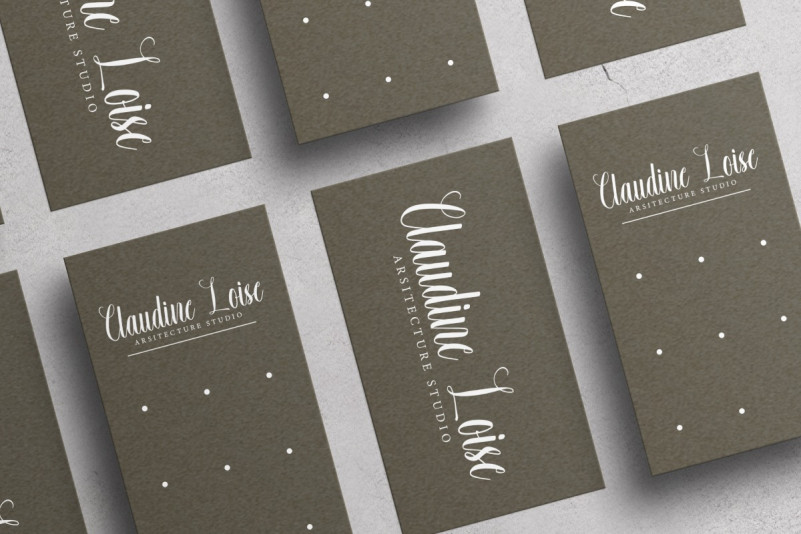
Baby Creamy Calligraphy Font is an alluring soft script font created by EdricStudio. This font has a neat and classy impression and easy to read making it suitable for any industry, such as accessories, architect, clothing brand, cosmetic, event organizer, flower shop, photography, printing, publishing, restaurant, and much more.
Baby Creamy Font comes with a full set of Uppercase and Lowercase Basic Characters, Number, a large range of Punctuation and Symbol. It has a stunning characters set, perfectly managed with well spaced and kerning. Baby Creamy Font will be great for any projects (with extended license) including : brand logo, business card, label, packaging design, paper bag, photo album, quote, sticker, website, etc.
Designer Name: | Edric Studio |